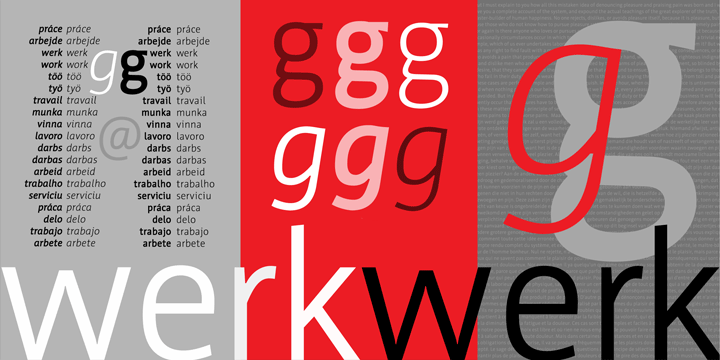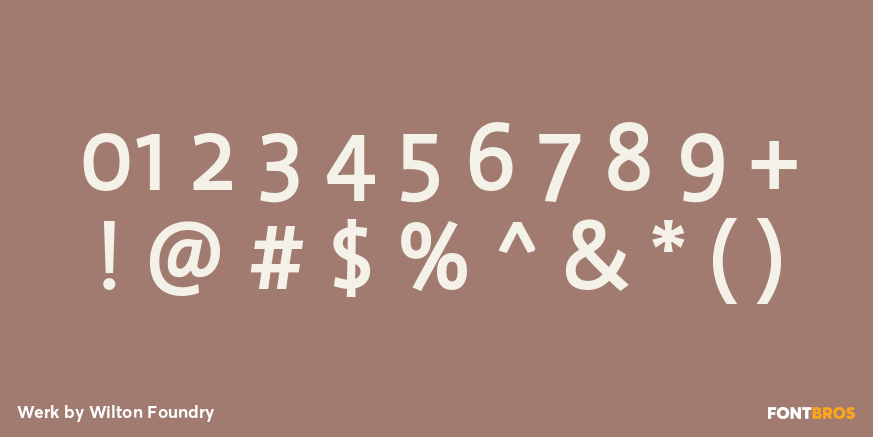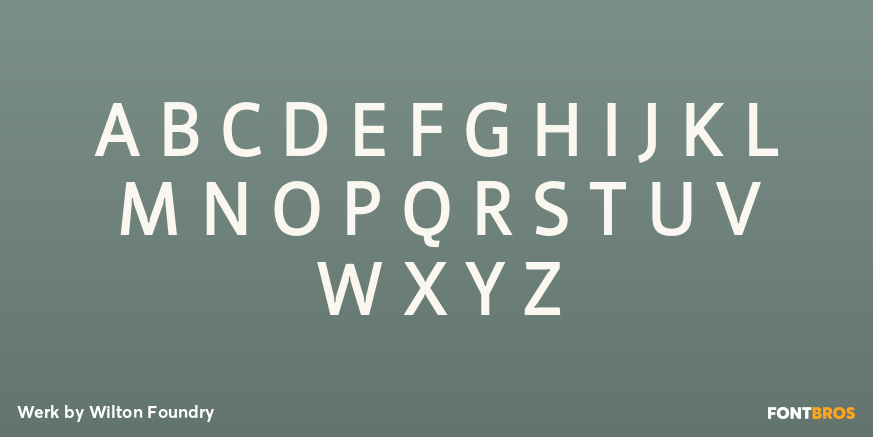
Werk
Font Family by Wilton Foundry
Because we all need a ?werk? horse font that is simple, useful and with just enough character not to be too dominant.
Werk, as a family, attempts to meet that need with plenty of weights ranging from light to bold plus light condensed through bold condensed.